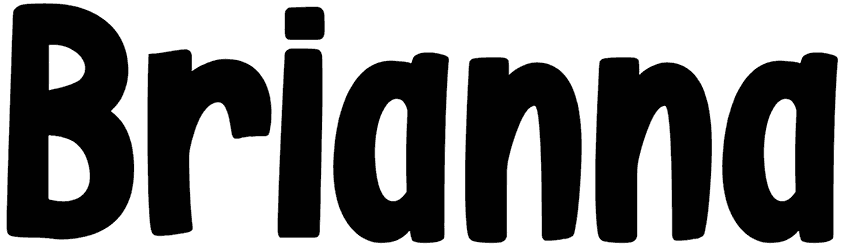
Brianna Font
Brianna is a fancy cartoon font that brings a playful and creative touch to any design project. With its whimsical curves and bold lines, Brianna is the perfect choice for anyone looking to add a touch of fun and personality to their designs. It’s perfect for posters, invitations, logos, and more.